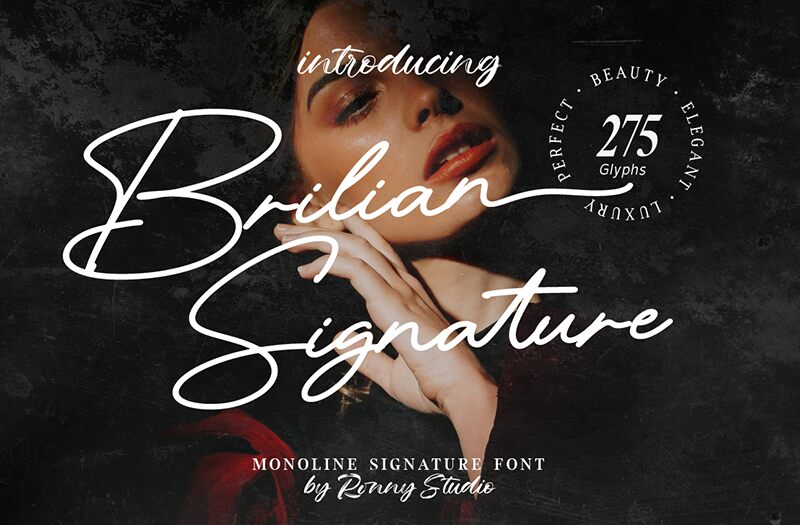
Brilian Signature font by Ronny Studio is a light handwritten typeface characterized by its elegant and sophisticated appearance. The flowing lines and harmonious structure give this font a signature style that is both expressive and visually captivating. Perfect for creating designs that need a touch of refinement, it stands out with its graceful presentation.
This free handwritten font excels in branding projects, logos, business cards, wedding invitations, personal blogs, social media graphics, advertisements, posters, book covers, product packaging, stationery designs, and apparel design. Its fluidity brings an artistic flair to any project where individuality and style are key.